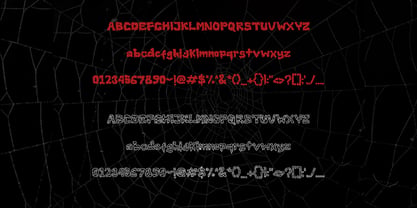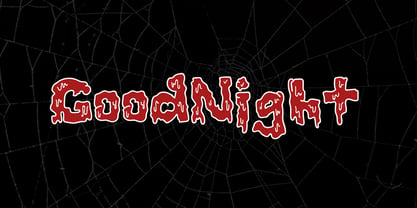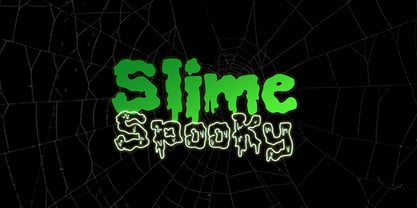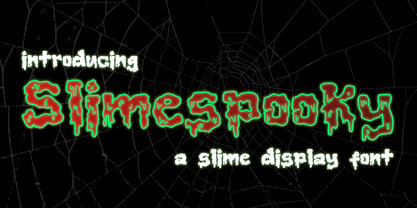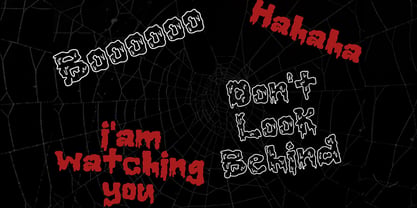
Slimespooky
La famille de polices Slimespooky a été conçue par Jada Akbal et publiée par Jadatype. Slimespooky contient 2 styles et options de package familial. En savoir plus sur cette famille
Slimespooky is a display font that comes with a Slime style. suitable for posters, tshirt, branding, social media, and so on. contains standard English letters, numbers, and punctuation.